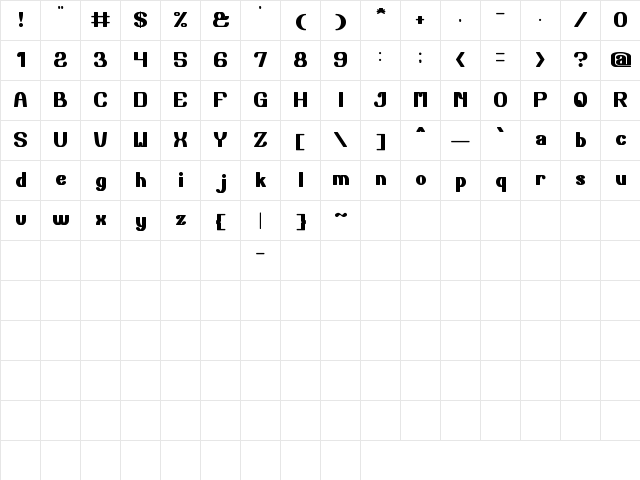
CHALK BOARD Regular
Design Context for CHALK BOARD Typeface
CHALK BOARD offers clean, dependable letterforms without strong stylistic allegiance, making it a practical choice for designers who need flexibility.